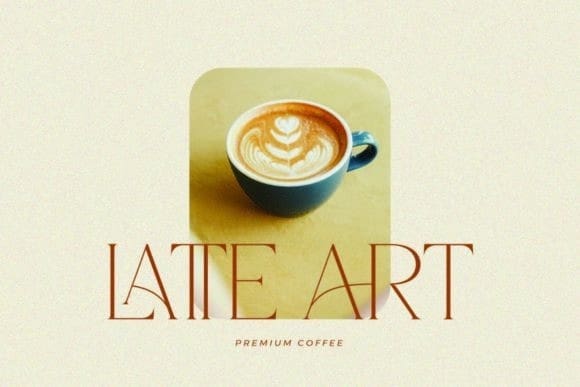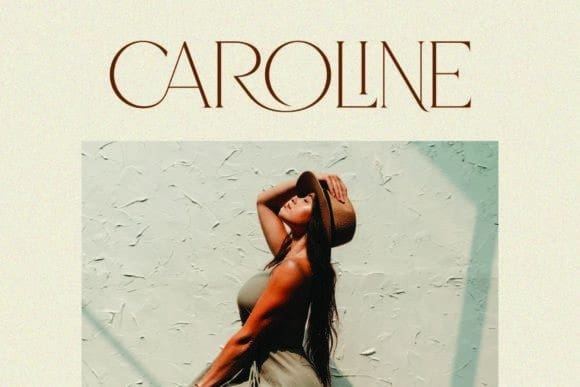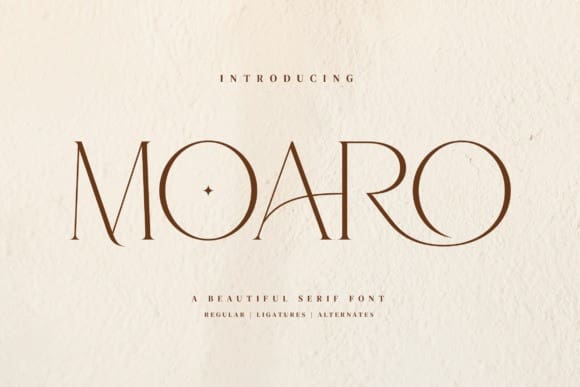
Moaro Font
Moaro Font is a stylish serif font, inspired by the famous minimalist logo perfect for the purposes of designing templates, brochures, videos, advertising branding, logos and more.